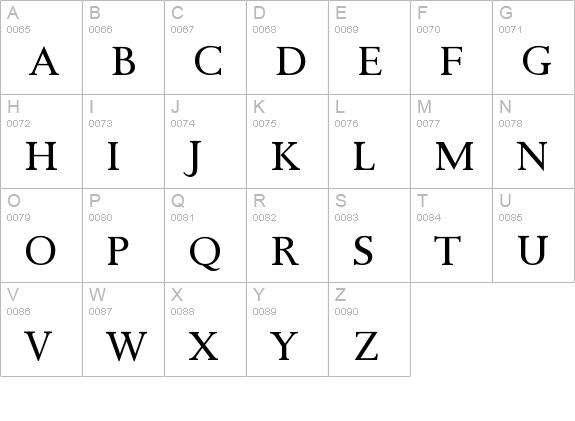
PalermoSerial-Light-Regular is a refined, elegant variant in the PalermoSerial typeface family \xE2\x80\x94 well suited to elegant body text, refined sub-headings, and luxury branding.
PalermoSerial-Light-Regular font is a modern and elegant typeface that exudes sophistication and professionalism. With its clean lines and balanced spacing, this font is perfect for a wide range of design projects, from branding to editorial layouts. The light weight of the font adds a touch of delicacy and refinement to any text it is applied to. What makes PalermoSerial-Light-Regular font even more appealing is that it is available for free download at FontsMarket.com. This means you can easily access this high-quality font without any cost, making it a valuable addition to your font library. Whether you are a designer, a marketer, or a content creator, PalermoSerial-Light-Regular font is a versatile and stylish choice that will elevate your projects to the next level.